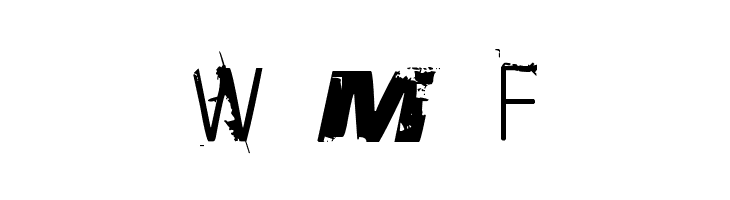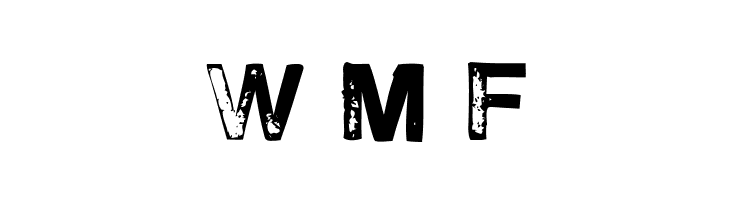
A distressed, grunge-style font with a rugged, hand-crafted appearance.
A bold, distressed font with a grunge texture and rugged appearance.
A bold, distressed font with a grunge, textured style.
A bold, distressed font with a grunge, textured appearance.
A distressed, vintage-style font with a bold, weathered appearance.
A bold, distressed font with a grunge, corroded texture.
A bold, distressed font with a grunge texture and tight spacing.
A bold, distressed font with a vintage rock poster vibe.
A bold, distressed font with a grunge aesthetic, perfect for edgy designs.
A bold, hand-drawn style font with irregular, energetic strokes and expanded width.
A bold, distressed font with a rugged, hand-crafted appearance.
A bold, distressed font with a rugged, grunge-like appearance.
A bold, distressed font with horror-themed elements and rugged textures.
A bold, grungy font with a dripping effect, perfect for horror or punk themes.
A bold, distressed font with a gritty, high-impact style.
A bold, distressed font with jagged edges and an eerie, dramatic style.
A rugged, distressed font with bold outlines and shadow effects.